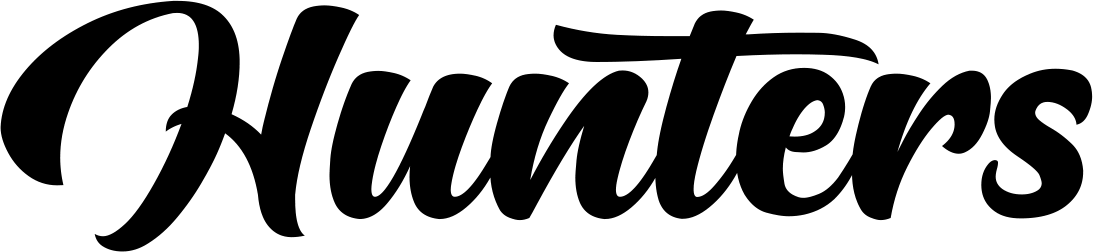
Hunters Font
Hunters is a bold and continuous script font and will give a lively and exciting feeling to your texts and make good headlines. This font can be used to make bold headlines, album and music names, classic and retro movie names, and tattoo and jewelry prints.